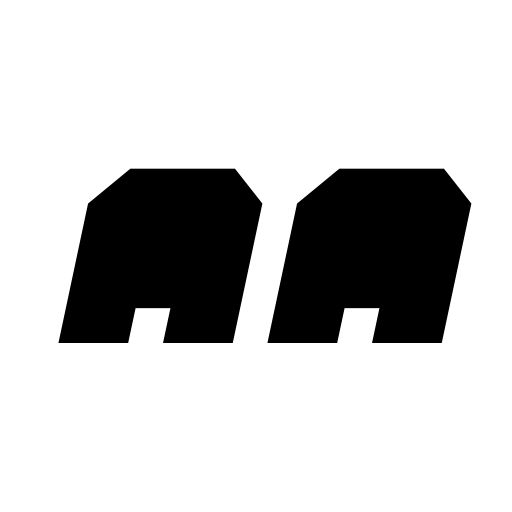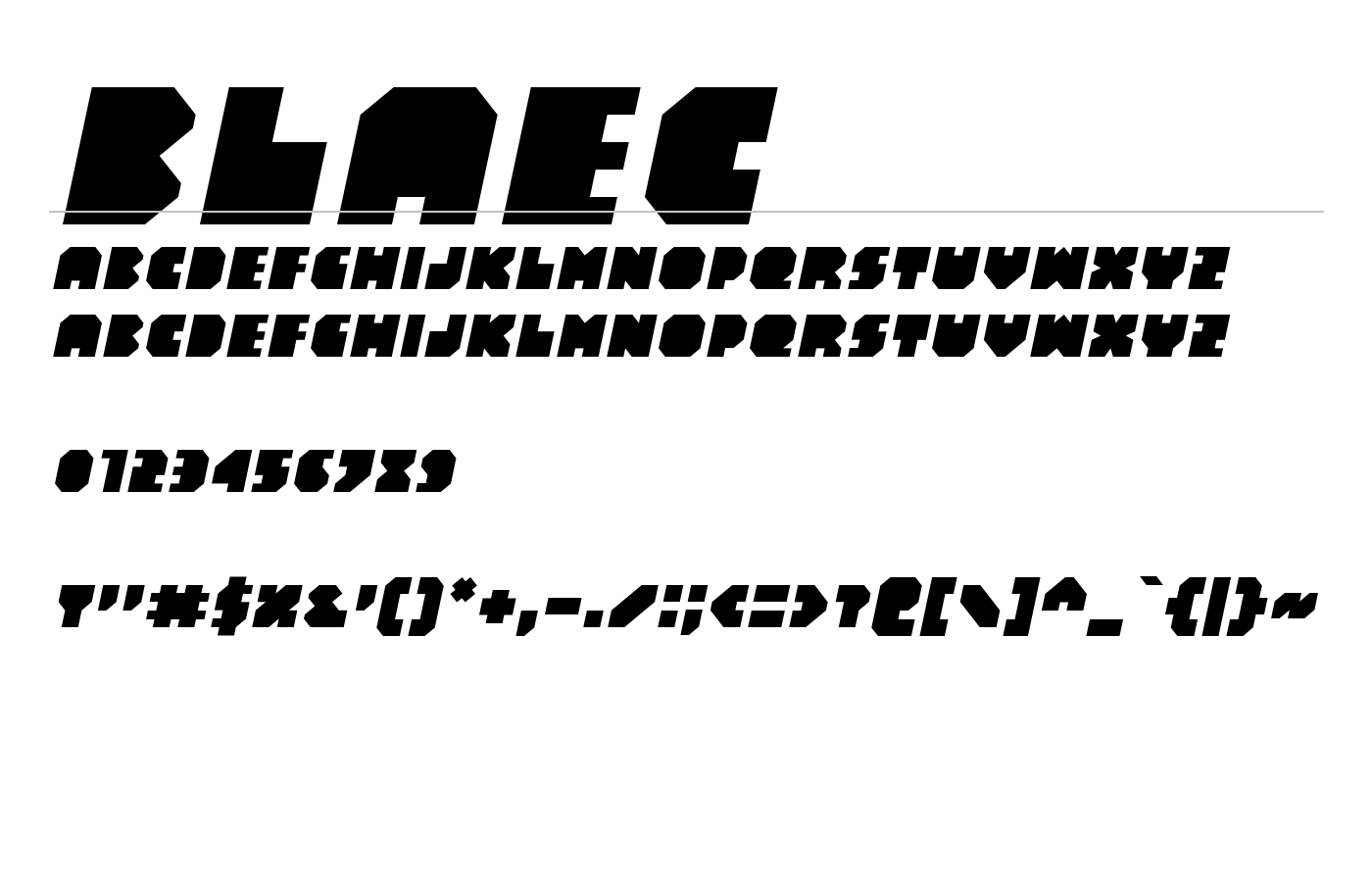
Blaec is a bold, condensed sans serif font with strong geometric shapes and sharp angles, giving it a dynamic and futuristic feel. Its heavy weight and compact letterforms make it ideal for striking headlines, logos, and poster designs where impact and modernity are key. This font works especially well for brands seeking a powerful, edgy aesthetic that stands out with confidence and style.
Blaec Font
About Blaec Font
| Font family | Blaec Font |
| Designer | GGBotNet |